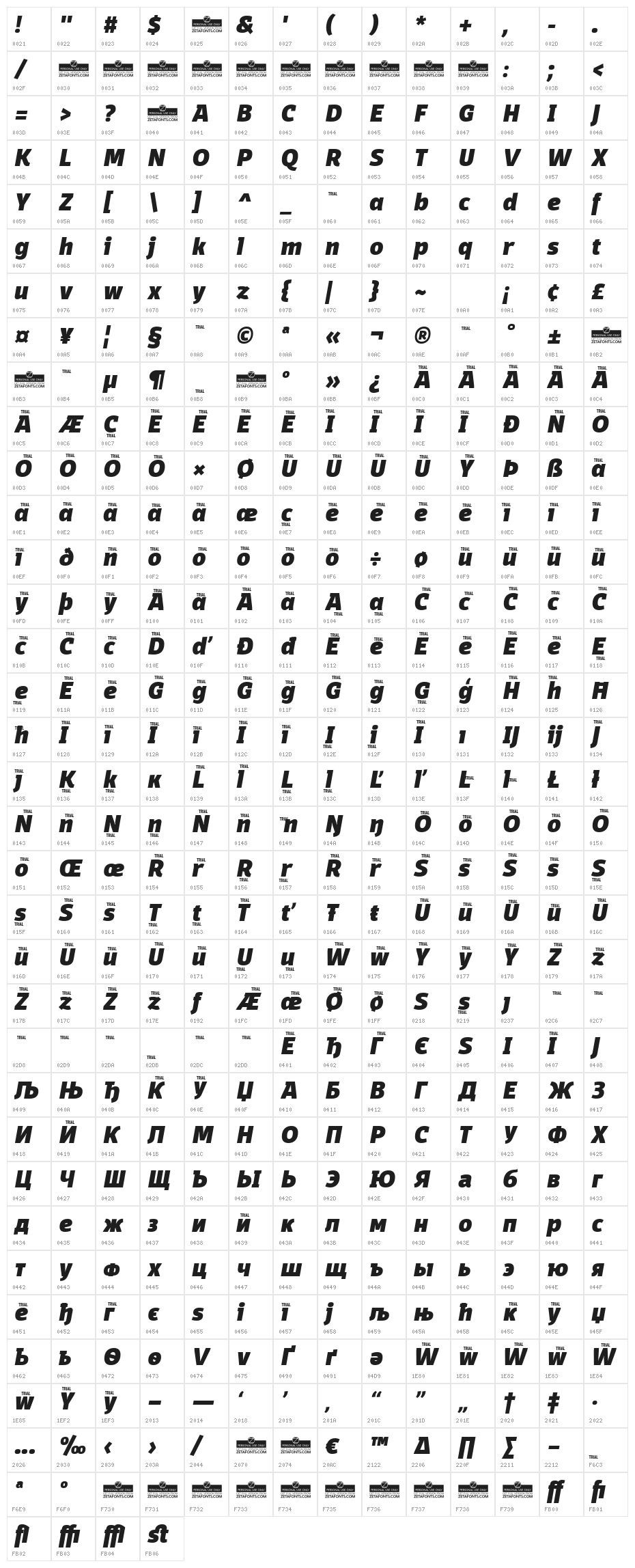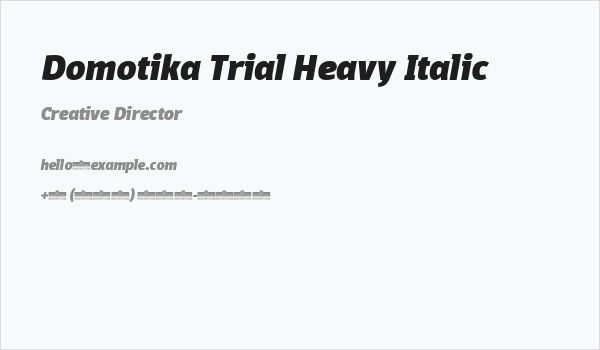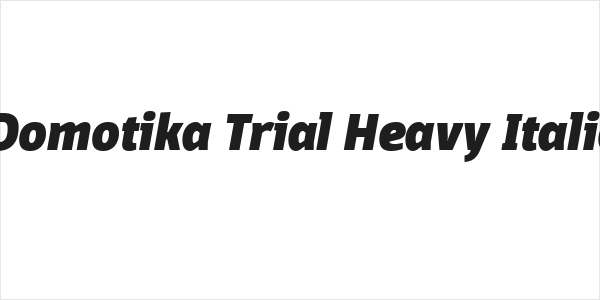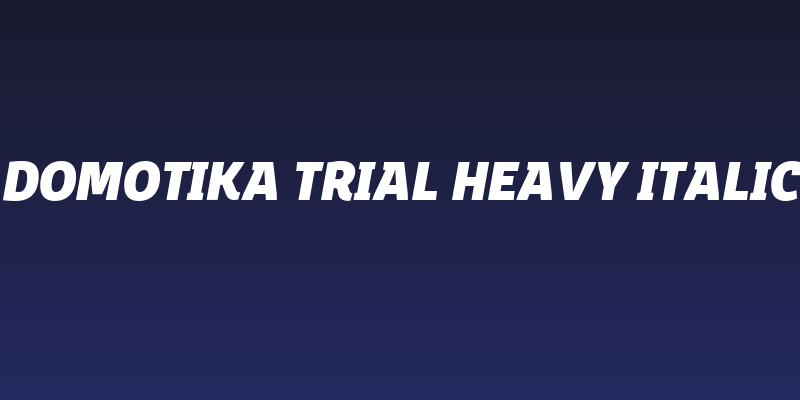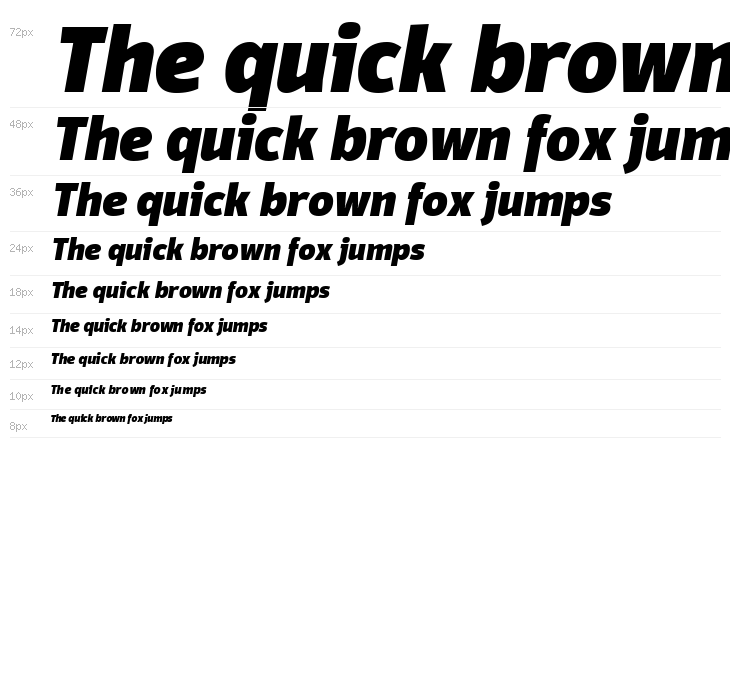
Domotika Trial Heavy Italic Font
Domotika Trial Heavy Italic Description
This font exhibits a bold and dynamic presence with its heavy weight and italicized style. The characters are robust and convey a sense of strength and modernity. The uppercase and lowercase letters maintain a consistent slant, enhancing the italic effect. The numbers and special characters follow the same bold and italicized design, ensuring uniformity across all glyphs. The overall appearance is clean and impactful, making it suitable for attention-grabbing headlines and statements. The spacing between characters is tight, contributing to its compact and powerful look.
| Proposed Projects | Ideal for branding, advertising, and editorial design where a strong and modern impression is needed. |